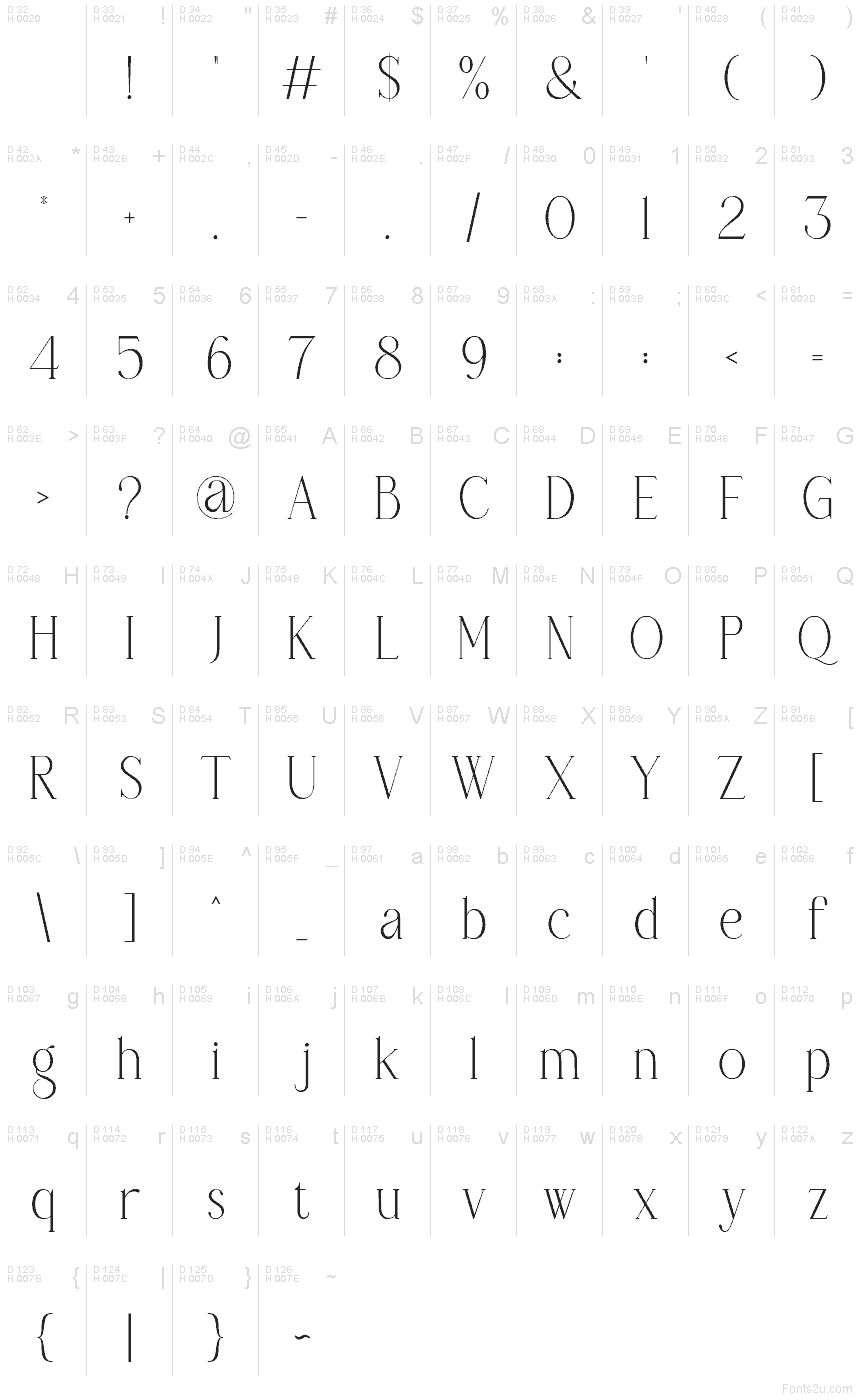
Merolat
Merolat font by Ermedia Studio is a free serif display font. Its defining feature is the razor-fine hairlines paired with velvety thick strokes, creating a taut, elegant rhythm that feels both fragile and assured. The serifs land like precise brush taps, giving headlines a glassy sheen while keeping word shapes crisp and readable at larger sizes.
Using Merolat, your work instantly leans luxe: fashion branding, magazine mastheads, cosmetics packaging, wedding invitations, book covers, and hero headlines. This free font carries a poised tension that turns short phrases into statements and logos into marks of intent. Pair it with a clean, unobtrusive sans for body copy, and give it generous tracking when set large to let those hairlines breathe.